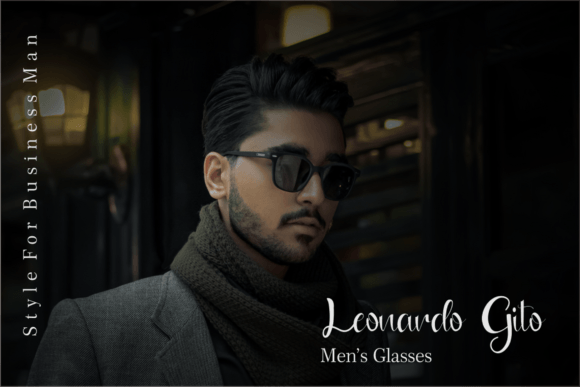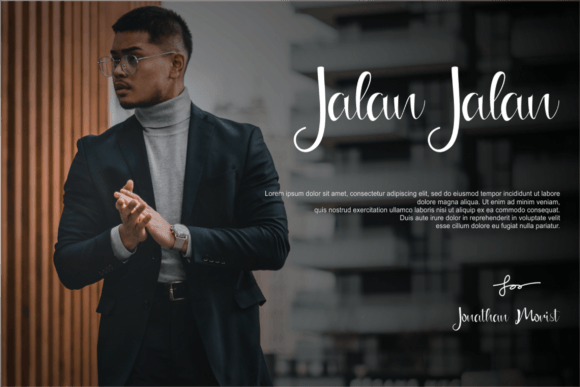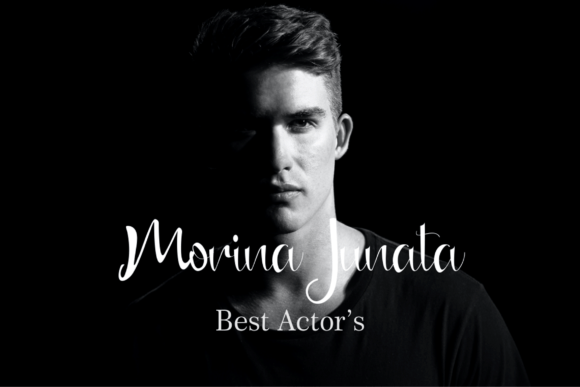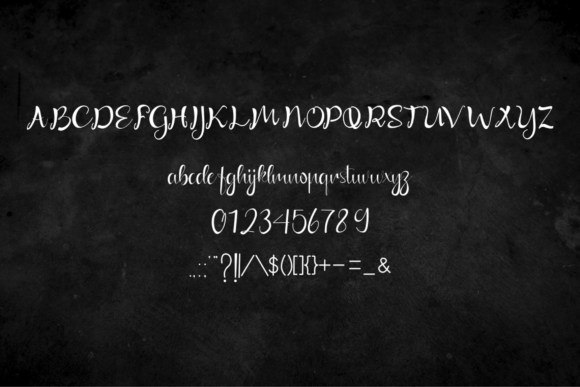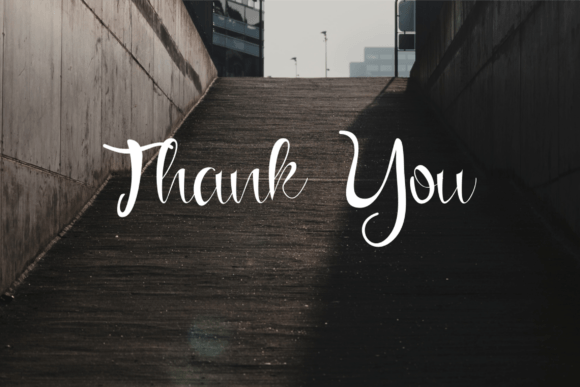
Introducing Ganurupa Font: Elevate Your Designs with Elegance and Authenticity
In the world of typography, a font can make or break a design. For designers and crafters looking for a script font that exudes elegance and authenticity, Ganurupa Font is an exceptional choice. This beautiful font is designed to enhance any branding project, from logos and t-shirt printing to export and various other applications. With its unique charm, Ganurupa Font is poised to become a favorite among creative professionals.
What is Ganurupa Font?
Ganurupa Font is an elegant and authentic script font that has been crafted with precision and attention to detail. Its flowing curves and sophisticated style make it an ideal choice for designers seeking to add a touch of refinement to their projects. Whether you’re working on a logo, a t-shirt design, or any other branding material, Ganurupa Font is sure to impress.
Key Features of Ganurupa Font
- Elegant and Authentic Design: Ganurupa Font boasts a unique and sophisticated design that is sure to elevate your projects.
- Versatile: This font is suitable for a wide range of applications, including logos, t-shirt printing, export, and more.
- Easy to Read: Despite its elegant design, Ganurupa Font remains highly legible, making it perfect for both headlines and body text.
- High-Quality: Ganurupa Font is crafted with high-quality lines and curves, ensuring that it looks stunning in various contexts.
Why Choose Ganurupa Font?
With so many fonts available, why should you choose Ganurupa Font for your next project? Here are a few compelling reasons:
- Unique Style: Ganurupa Font offers a distinctive style that sets it apart from more common fonts. Its elegant and authentic design ensures that your projects will stand out.
- Time-Saving: With Ganurupa Font, you can quickly and easily add a professional touch to your designs, saving you time and effort.
- Cost-Effective: Investing in a high-quality font like Ganurupa can be more cost-effective than commissioning a custom font design.
Use Cases for Ganurupa Font
Ganurupa Font’s versatility makes it suitable for a wide range of applications, including:
- Logo Design: Create a lasting impression with a logo that features the elegant and authentic style of Ganurupa Font.
- T-Shirt Printing: Add a touch of sophistication to your t-shirt designs with this beautiful script font.
- Branding and Advertising: Use Ganurupa Font to create eye-catching branding materials, such as brochures, flyers, and posters.
- Digital Media: Enhance your digital content, including social media graphics, presentations, and website headers, with the elegant style of Ganurupa Font.
Tips for Using Ganurupa Font
To get the most out of Ganurupa Font, consider the following tips:
- Pair with Complementary Fonts: Combine Ganurupa Font with sans-serif fonts for a balanced and harmonious look.
- Experiment with Sizes: Play around with different font sizes to create visual hierarchy and emphasize key elements.
- Adjust Line Spacing: Ensure that your text is easy to read by adjusting the line spacing to suit your design.
Ganurupa Font is an exceptional choice for designers and crafters seeking to add elegance and authenticity to their projects. With its unique style, versatility, and high-quality design, this script font is sure to become a staple in your font library. Whether you’re working on a logo, t-shirt design, or any other branding material, Ganurupa Font is an excellent choice. Elevate your designs with the sophistication and charm of Ganurupa Font.